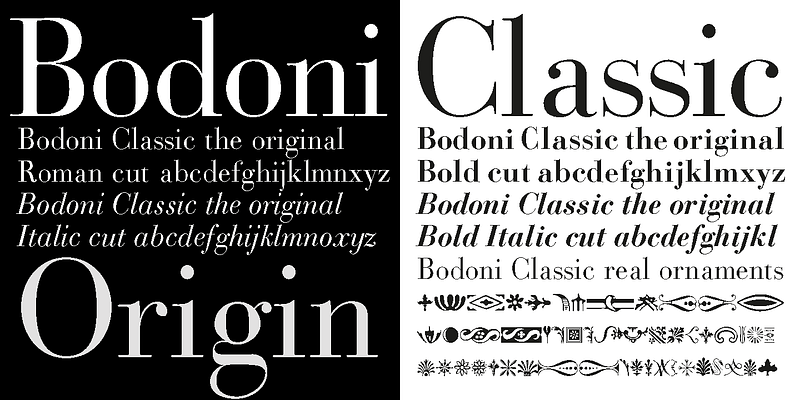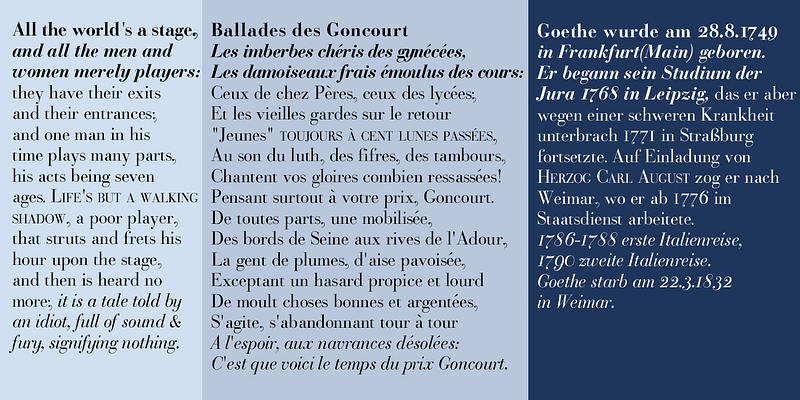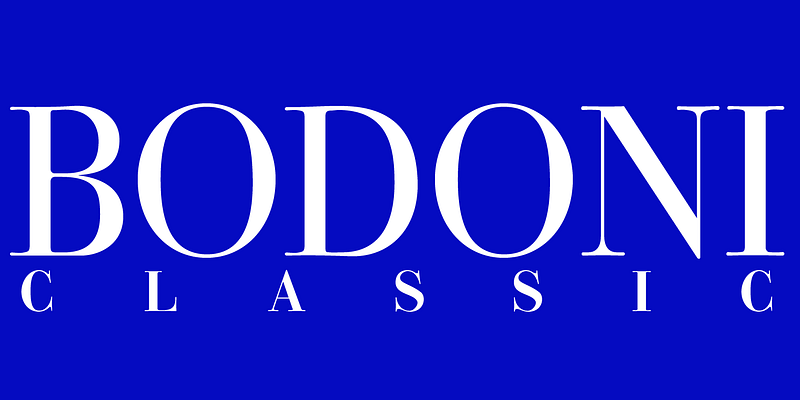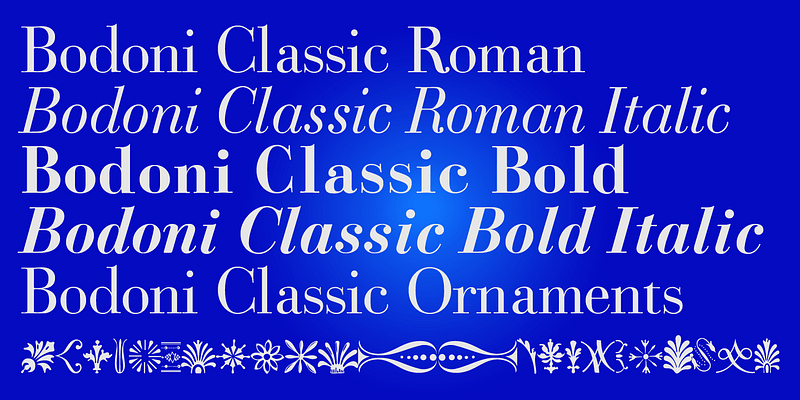
I became interested in designing Bodoni Classic because of a lazy graphic designer at Jacques Damase publishing house. He had to change a single letter on a bookcover about J. B. BODONI. The French call him Jean Baptiste instead of Giambattista! And that unknown graphic designer just took any old ‘J’ from some newly cut Bodoni.All the new Bodoni cuts have square serifs, whereas the originals had rounded serifs and slightly concave feet. The single letter ‘J’ with the squared off serif was for me like a road sign to start redesigning the entire Bodoni family.That’s exactly what I started in 1993 and a dozen years later I am finished. Okay, I am still adding new Bodoni Classics, but those are my personal additions. Recently I designed a family of seven »Bodonian Script« fonts, that can be mixed with most of my Bodonis. Yours very retro, Gert Wiescher